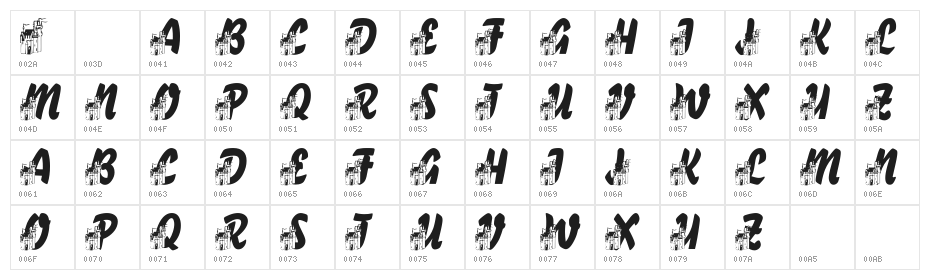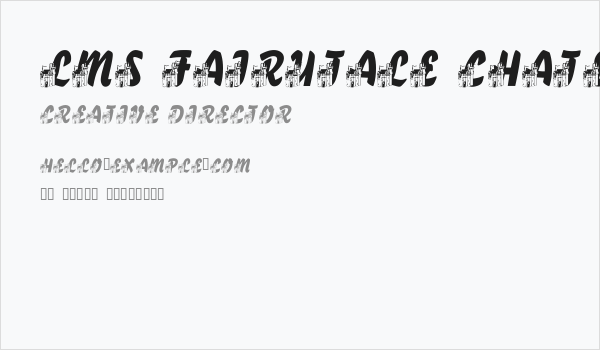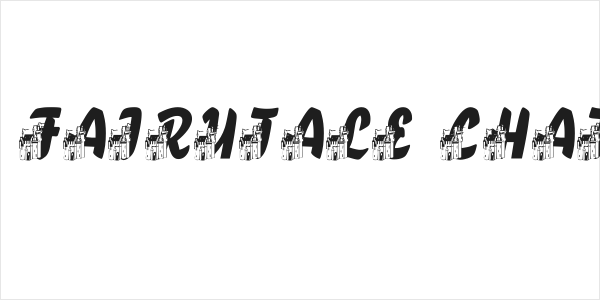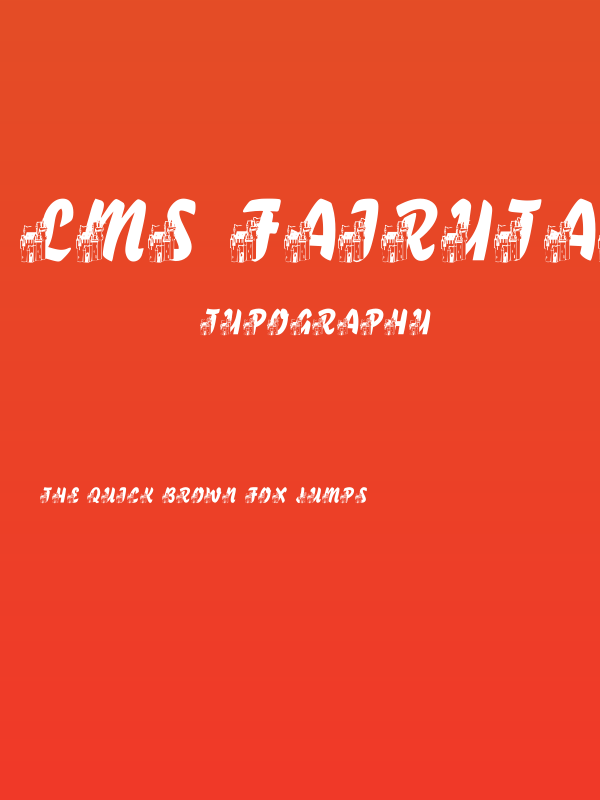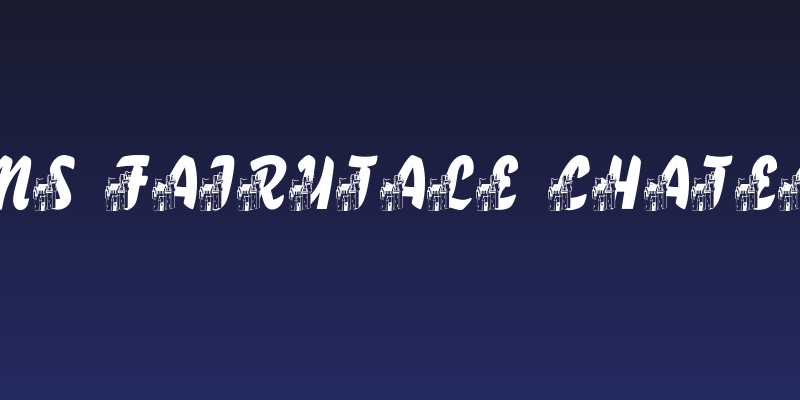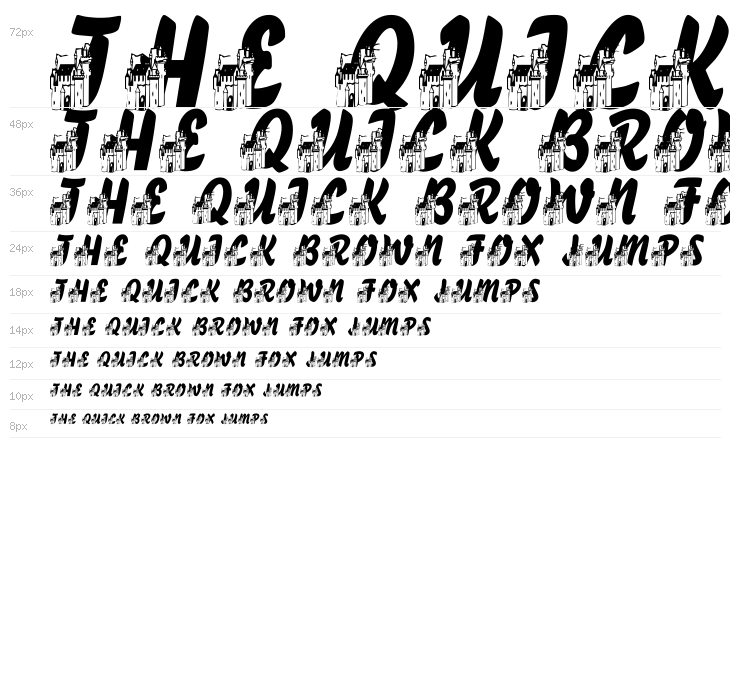
LMS Fairytale Chateau Font
LMS Fairytale Chateau Description
This font features a whimsical and enchanting design, incorporating castle illustrations within each character. The style is bold and decorative, with a playful yet elegant appearance. The uppercase and lowercase letters are consistent in their fairy tale theme, making it ideal for projects that require a touch of magic and fantasy. The characters are well-defined, with a moderate contrast between thick and thin strokes, enhancing readability while maintaining a unique aesthetic. The font's intricate details and imaginative design make it stand out, perfect for creative and themed applications.
| Proposed Projects | Ideal for fantasy-themed invitations, children's book covers, themed event posters, and magical branding projects. |